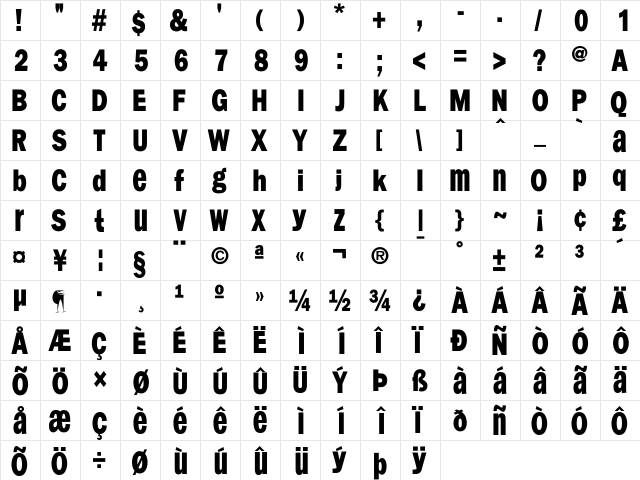
AIFranklySpoken Regular
Design Context for AIFranklySpoken Typeface
AIFranklySpoken is a composed and adaptable typeface that performs quietly and consistently across a wide range of design contexts.
Pro Tip: Use AIFranklySpoken in both headline and body roles to test its range before committing to a single application.